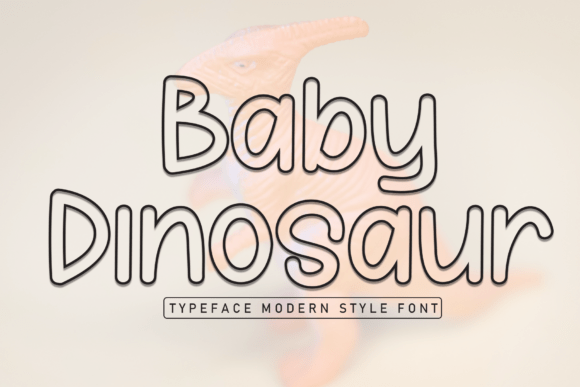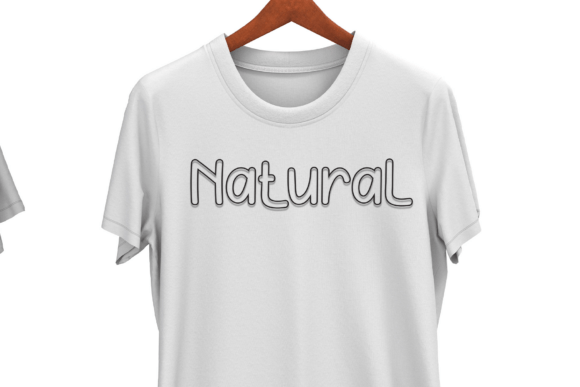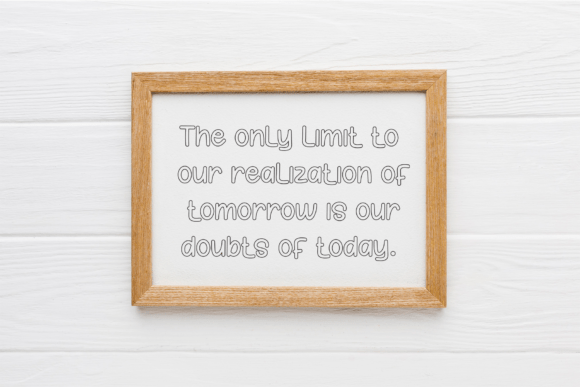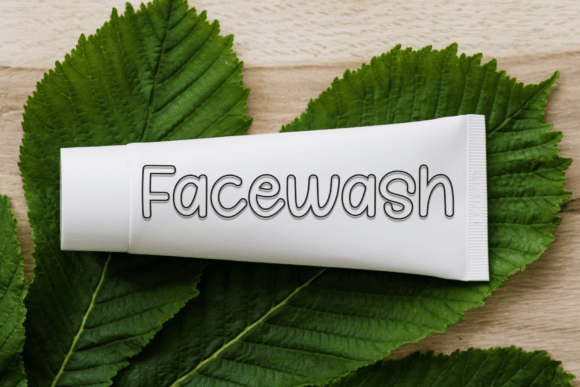
Baby Dinosaur Font
About the Baby Dinosaur Font
Unleash your creativity with Baby Dinosaur Font, a versatile font perfect for a wide range of applications. Baby Dinosaur is a casual and neat display font that radiates a fresh, friendly vibe. With clean lines and a relaxed structure, it’s perfect for packaging, posters, and social media graphics. The approachable design adds charm and clarity to projects while maintaining a polished appearance.
Its friendly, slightly quirky personality makes it ideal for children’s products, branding for playful businesses (e.g., cafes, toy stores), and projects needing a touch of lighthearted charm. Avoid using it for large blocks of body text or UI elements where high readability is paramount; its casual nature might compromise legibility.
Pair Baby Dinosaur with a clean sans-serif like Open Sans for body copy to create a balanced, accessible design. For a more sophisticated look, consider pairing it with a classic serif font such as Garamond for a touch of elegance, or a geometric sans-serif like Futura for a modern contrast.
The font’s overall mood is best described as cheerful and approachable, making it a strong choice for projects that prioritize a friendly, accessible aesthetic.
Baby Dinosaur Font Usage Examples
Baby Dinosaur Font Example